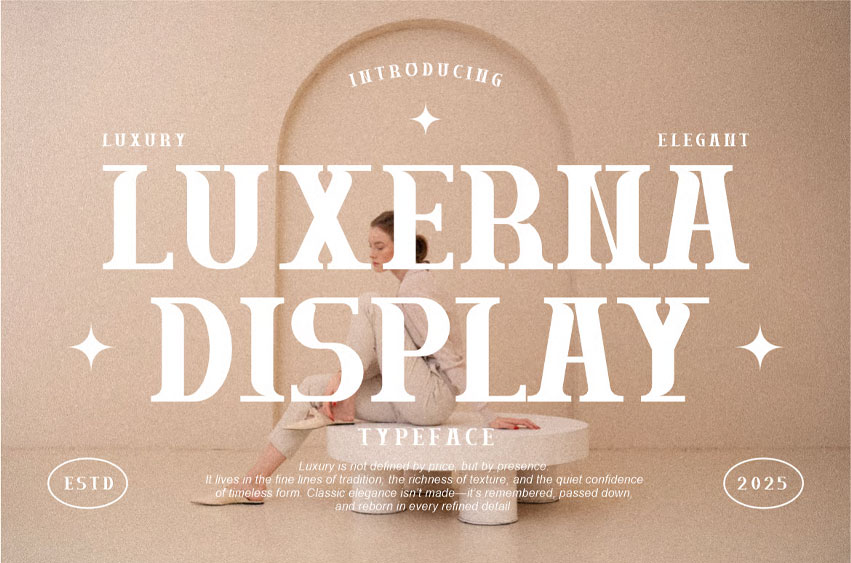
Luxerna Display Font
Luxerna Display Font is a sophisticated typeface that embodies the essence of modern elegance and classic luxury. Designed with sharp transitional serifs and a confident high-contrast weight, this font draws inspiration from heritage typography often seen in upscale branding, couture magazines, and timeless editorials. Each character in Luxerna Display is meticulously crafted with subtle curves and exaggerated terminals, striking a balance between traditional refinement and contemporary flair. The font exudes high-fashion sensibilities, especially through its narrow spacing, stylish alternates, and unique flair on characters like the “R”, “M”, and “Y”, which add visual drama to titles and headlines. The uppercase forms command authority, while the lowercase remains fluid and graceful, making the font incredibly versatile for both dominant headlines and refined secondary text.
The layout styling showcased in the promotional visuals leverages warm neutral tones, editorial-style photography, and centered, symmetrical compositions—perfectly aligned with luxury skincare brands, boutique fashion labels, premium product packaging, and wedding stationery. The timeless look and polished execution of Luxerna Display make it ideal for applications where elegance meets clarity, whether in magazine mastheads, upscale logos, classy packaging designs, or minimalist web interfaces. Luxerna’s blend of legacy charm and minimal sensibility ensures that your design will resonate with an audience seeking taste and sophistication in every letterform.